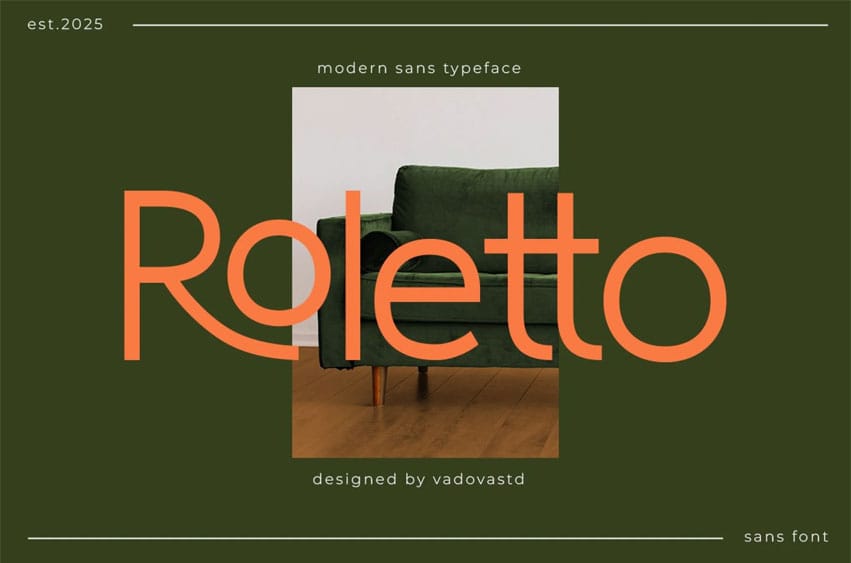
Roletto Font is a modern sans typeface that radiates confidence, clarity, and editorial elegance. With a crisp structure and fashion-forward rhythm, Roletto is designed to bring high-end sophistication to visual storytelling. Its personality is clean but far from cold, delivering a distinct balance between minimal form and expressive function.
This font is crafted for today’s image-driven branding, perfect for fashion editorials, portfolio sites, luxury packaging, and lifestyle magazines. It suits Instagram graphics, campaign headlines, and product display designs where you need something both eye-catching and refined.
Roletto’s letterforms are geometric and smooth with subtle humanist nuances, making it readable yet sharp. The tall x-height and wide apertures give it a versatile range from sleek body text to bold display use. Its sans-serif structure makes it universally adaptable, while its stylish weight variation adds flair to both monochrome and colorful branding systems.